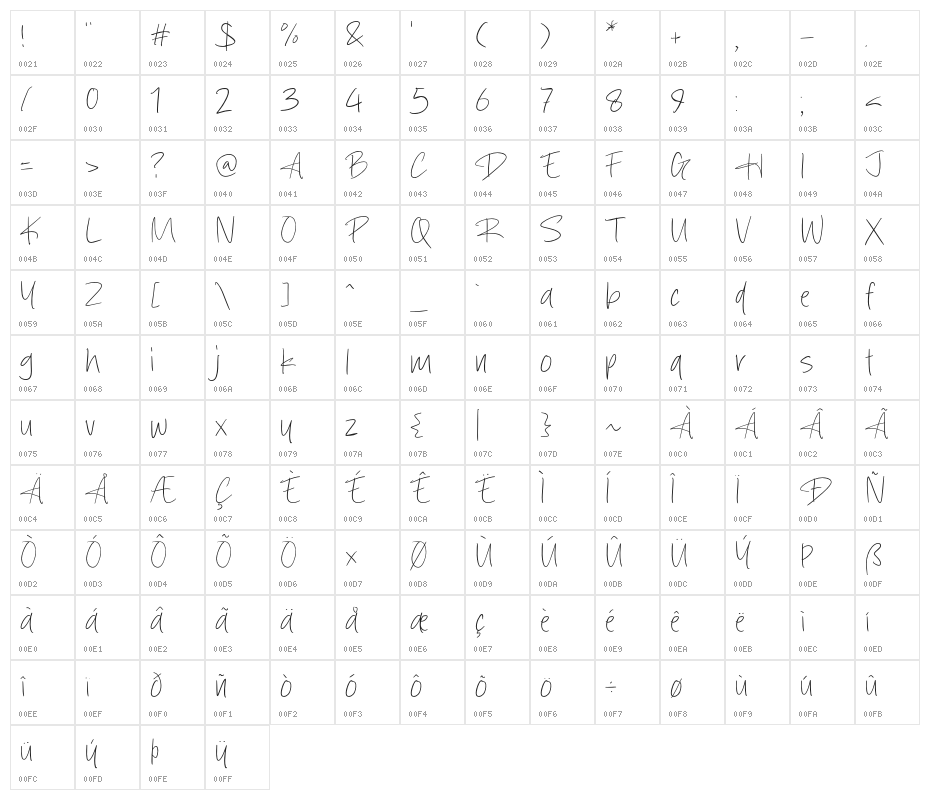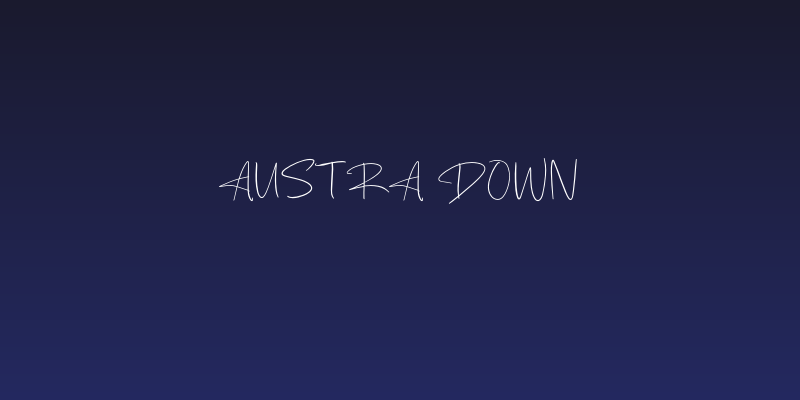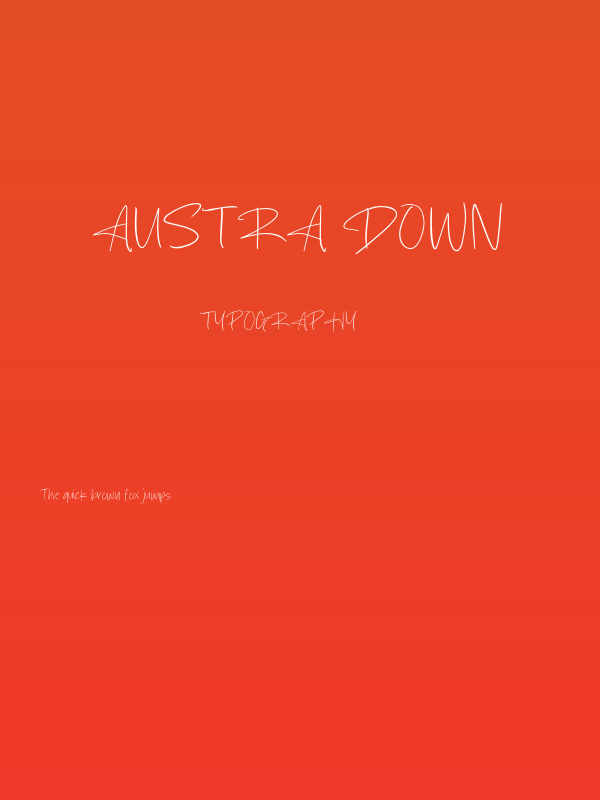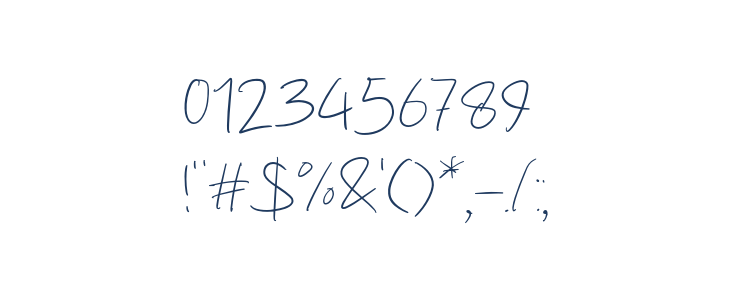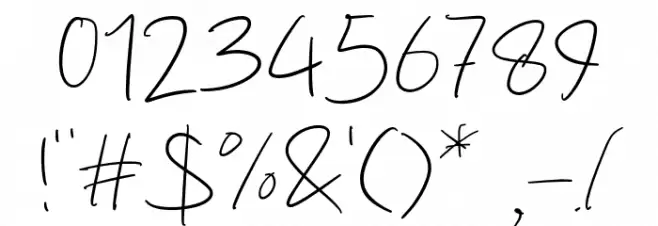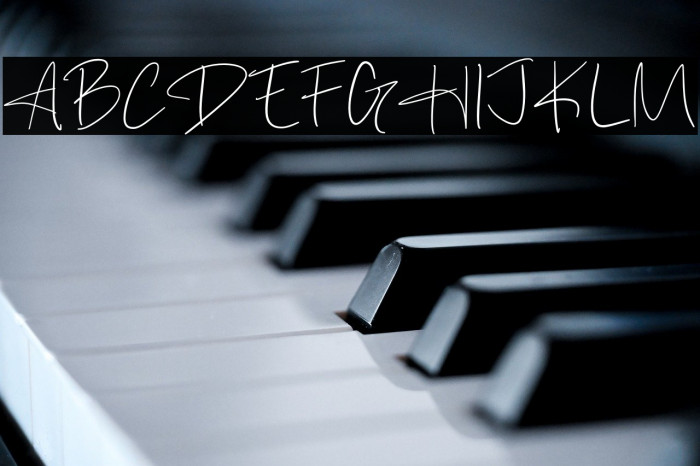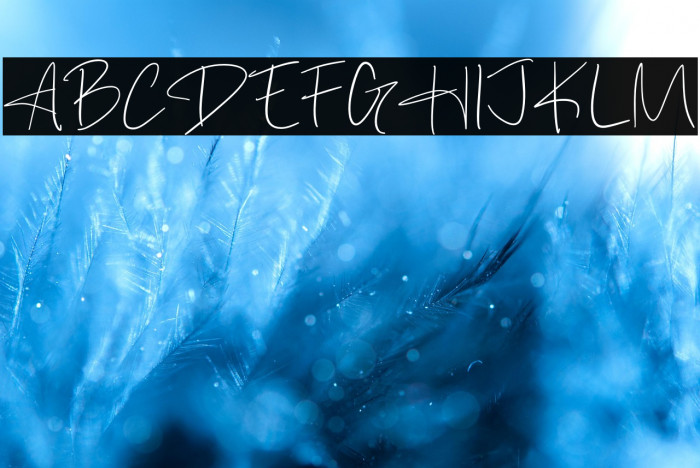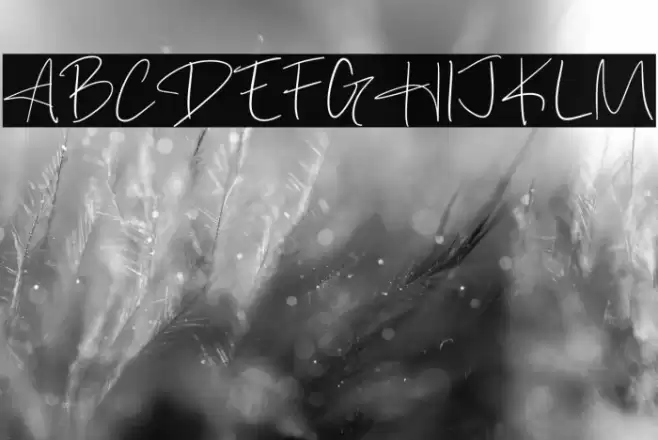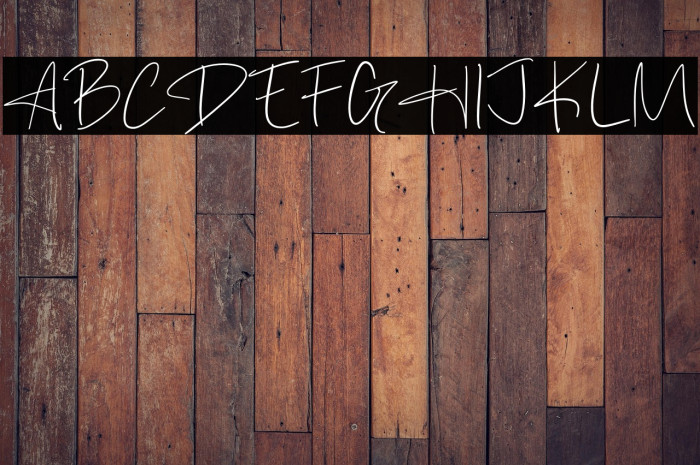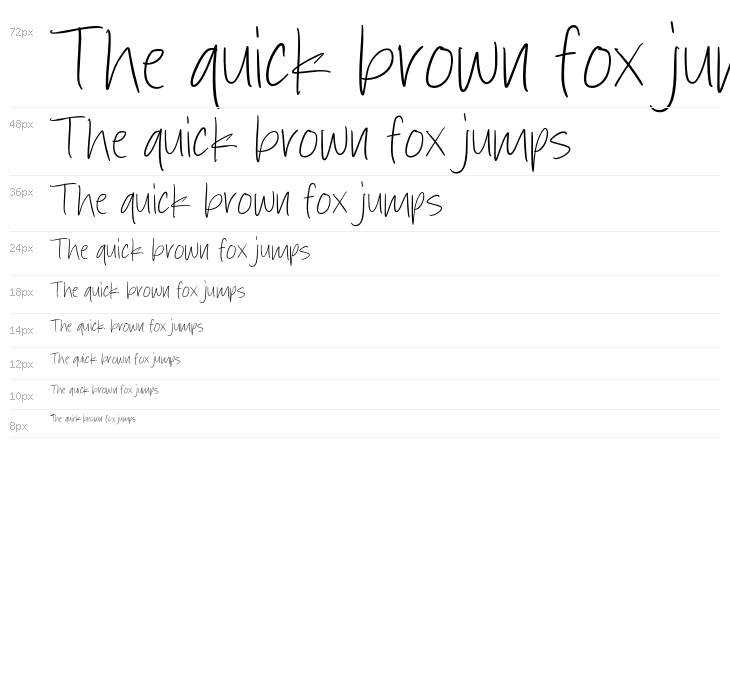
Austra Down Font
Austra Down Description
This font features a casual, handwritten style with a playful and informal appearance. The letters are slightly slanted, giving it a dynamic and lively feel. The strokes are consistent in thickness, maintaining a uniform look throughout. The characters are well-spaced, ensuring readability while retaining a personal touch. The font includes a full set of uppercase and lowercase letters, numerals, and a variety of special characters, making it versatile for different uses. Its organic and flowing design makes it suitable for projects that require a human touch, such as personal invitations, greeting cards, or creative branding.
| Use Case | Logos, Invitations, Greeting Cards |
| Proposed Projects | Ideal for personal invitations, greeting cards, creative branding, and informal communication. |